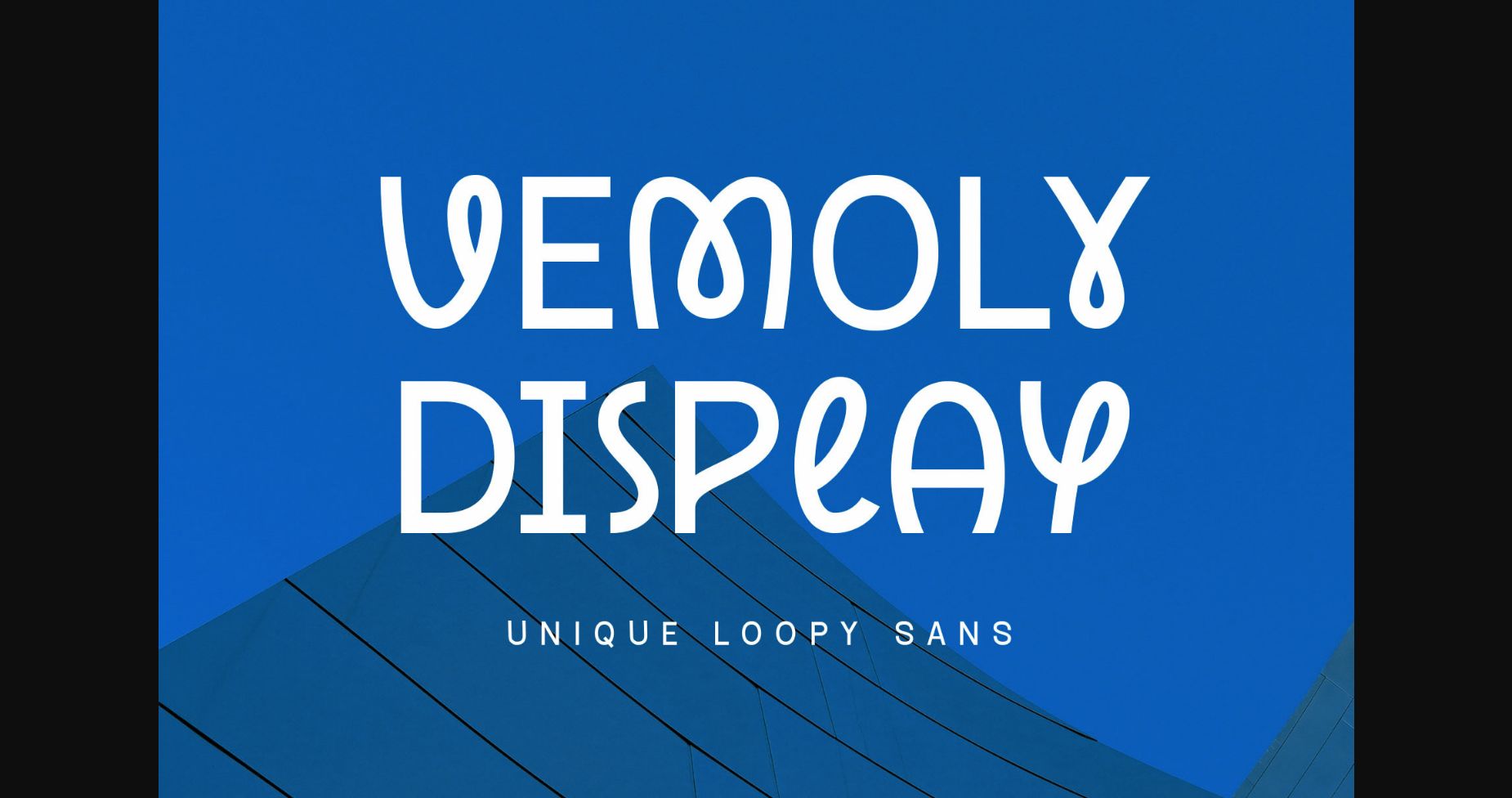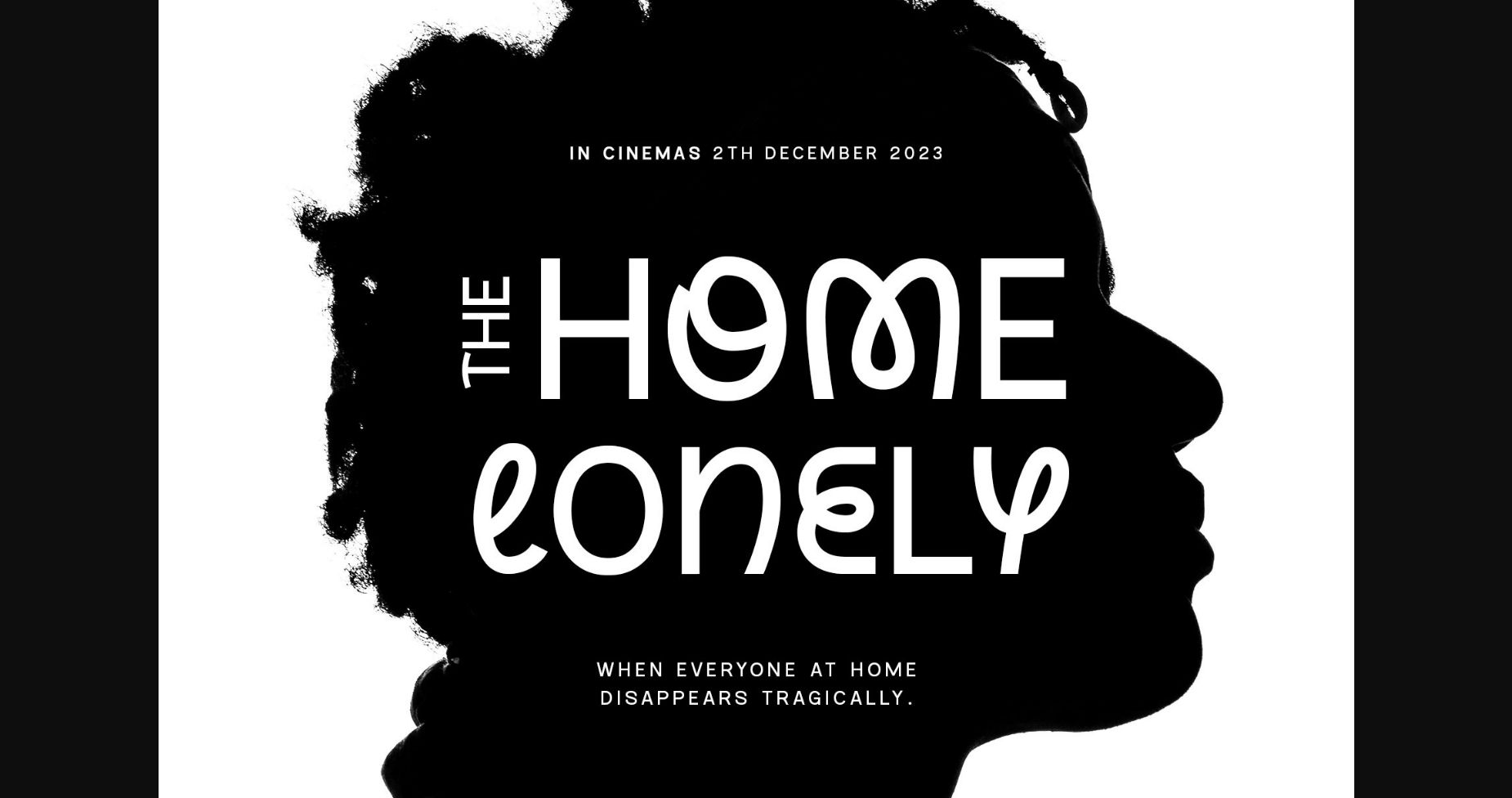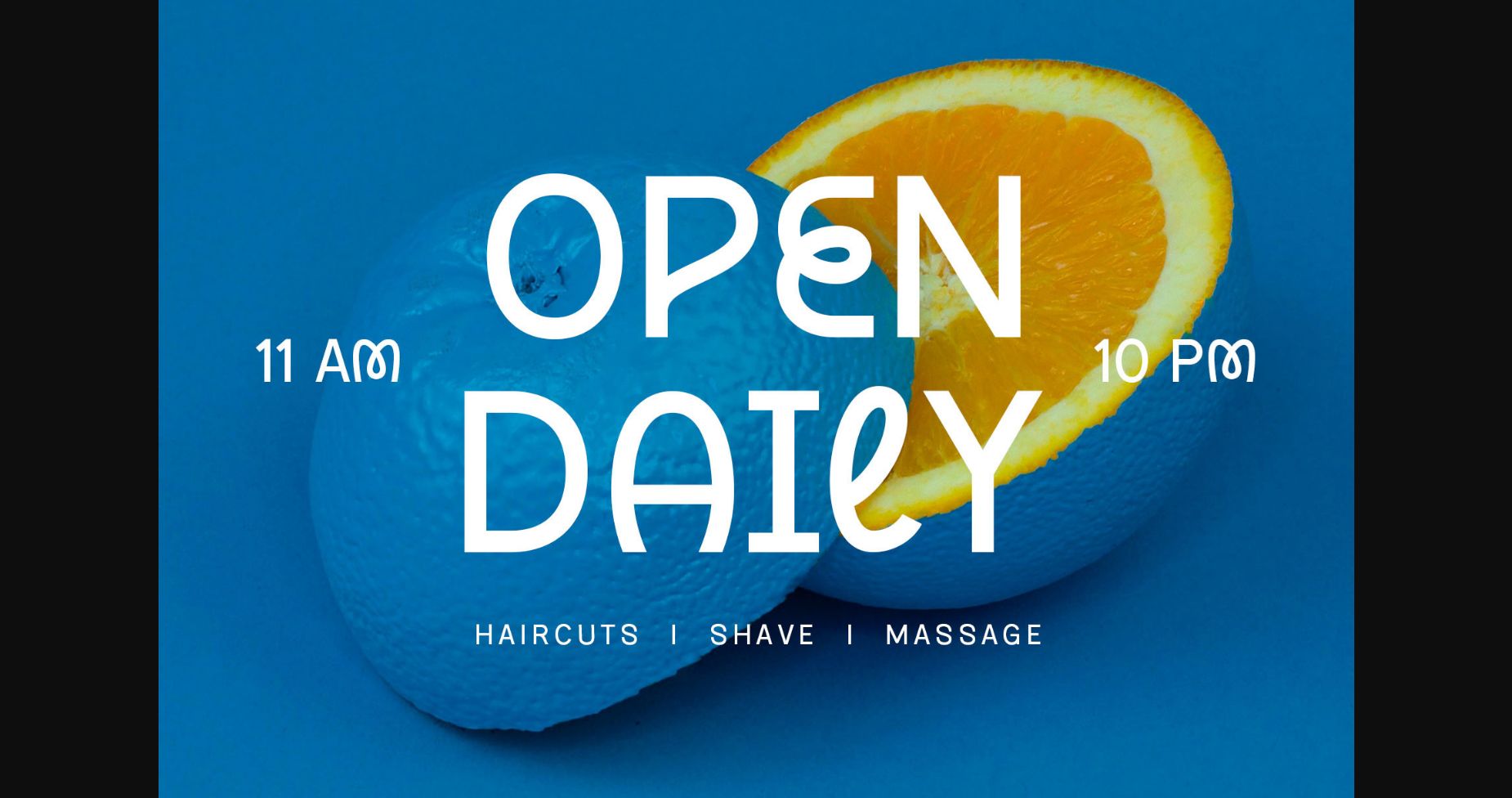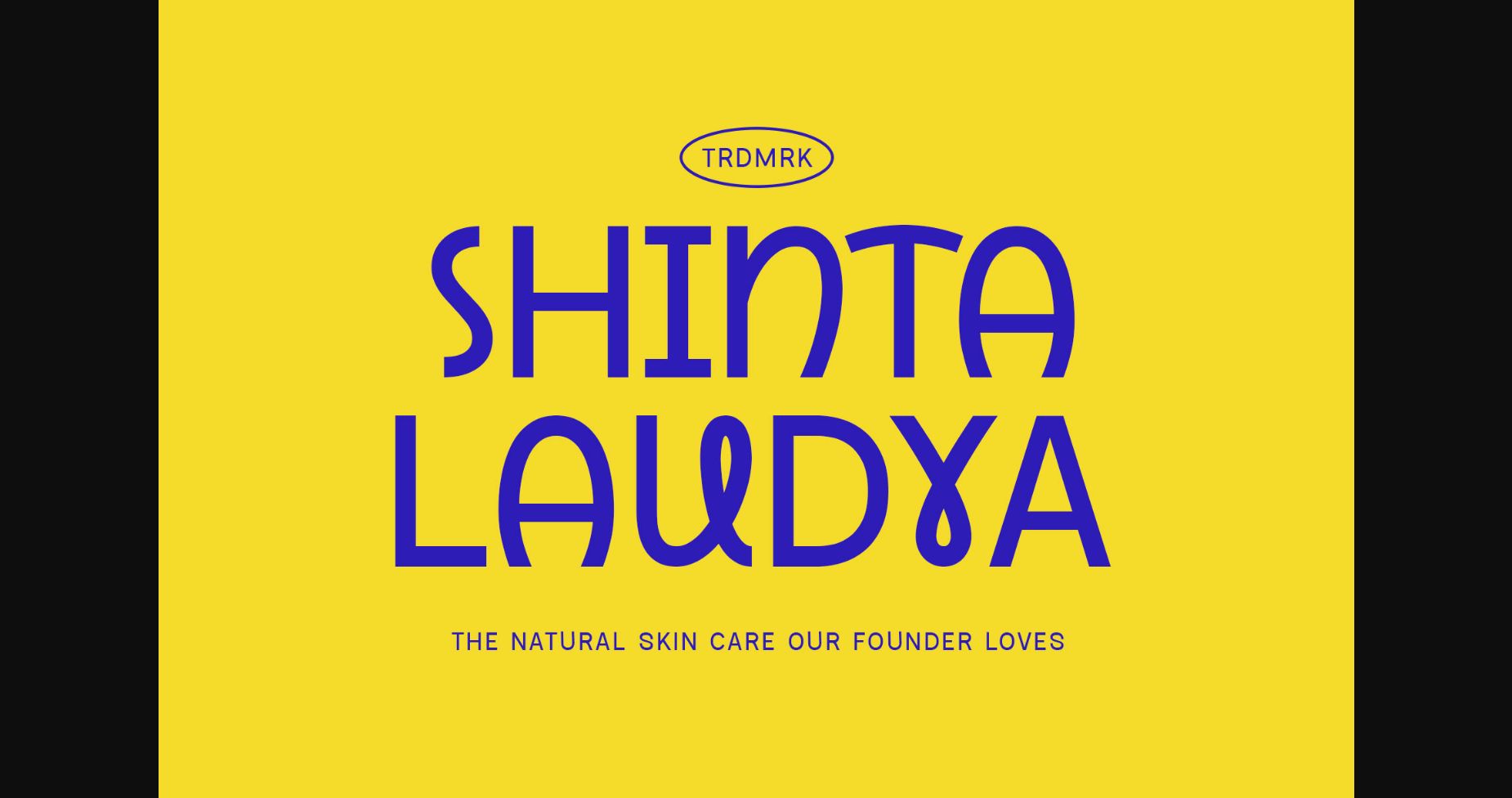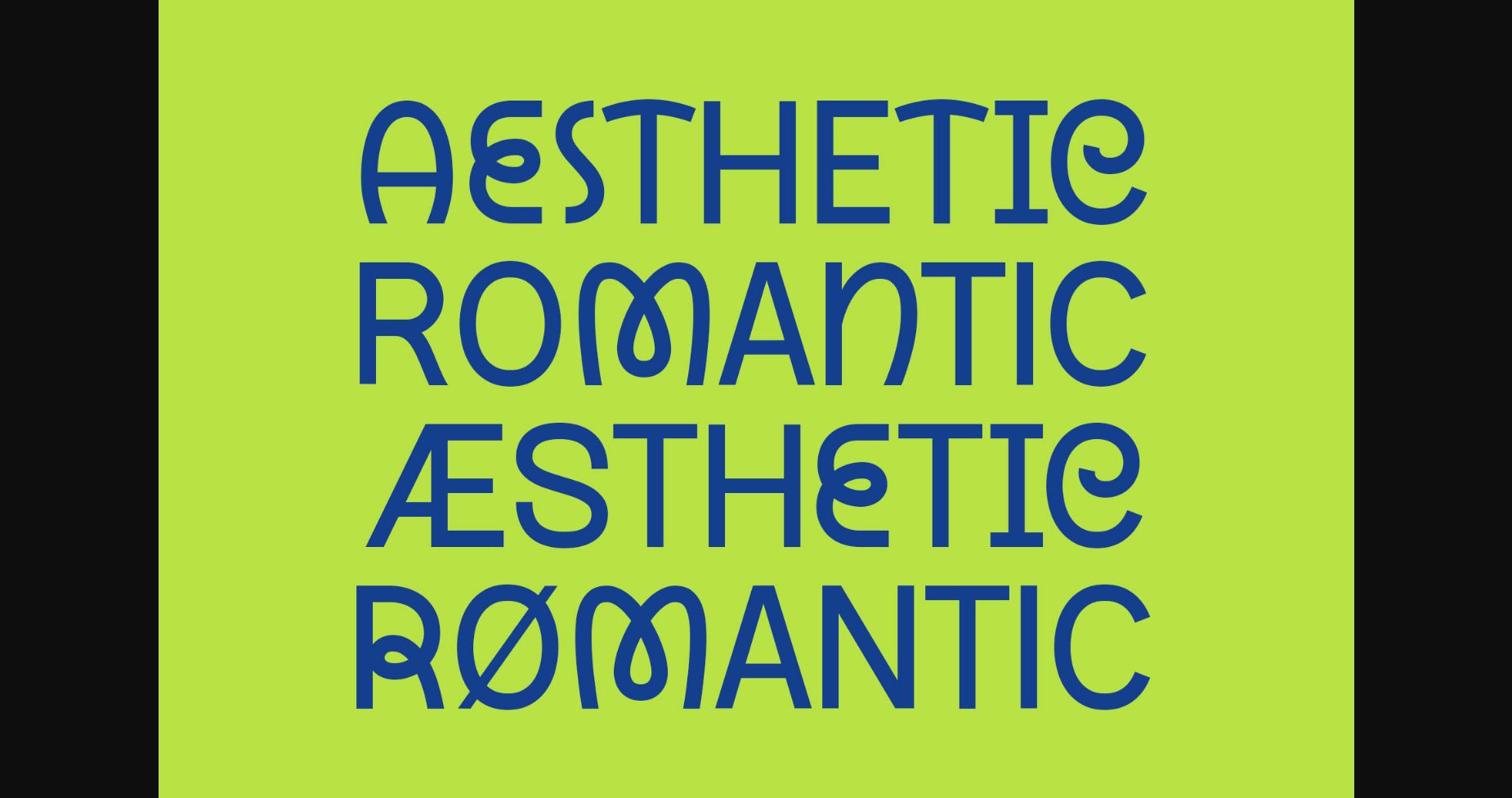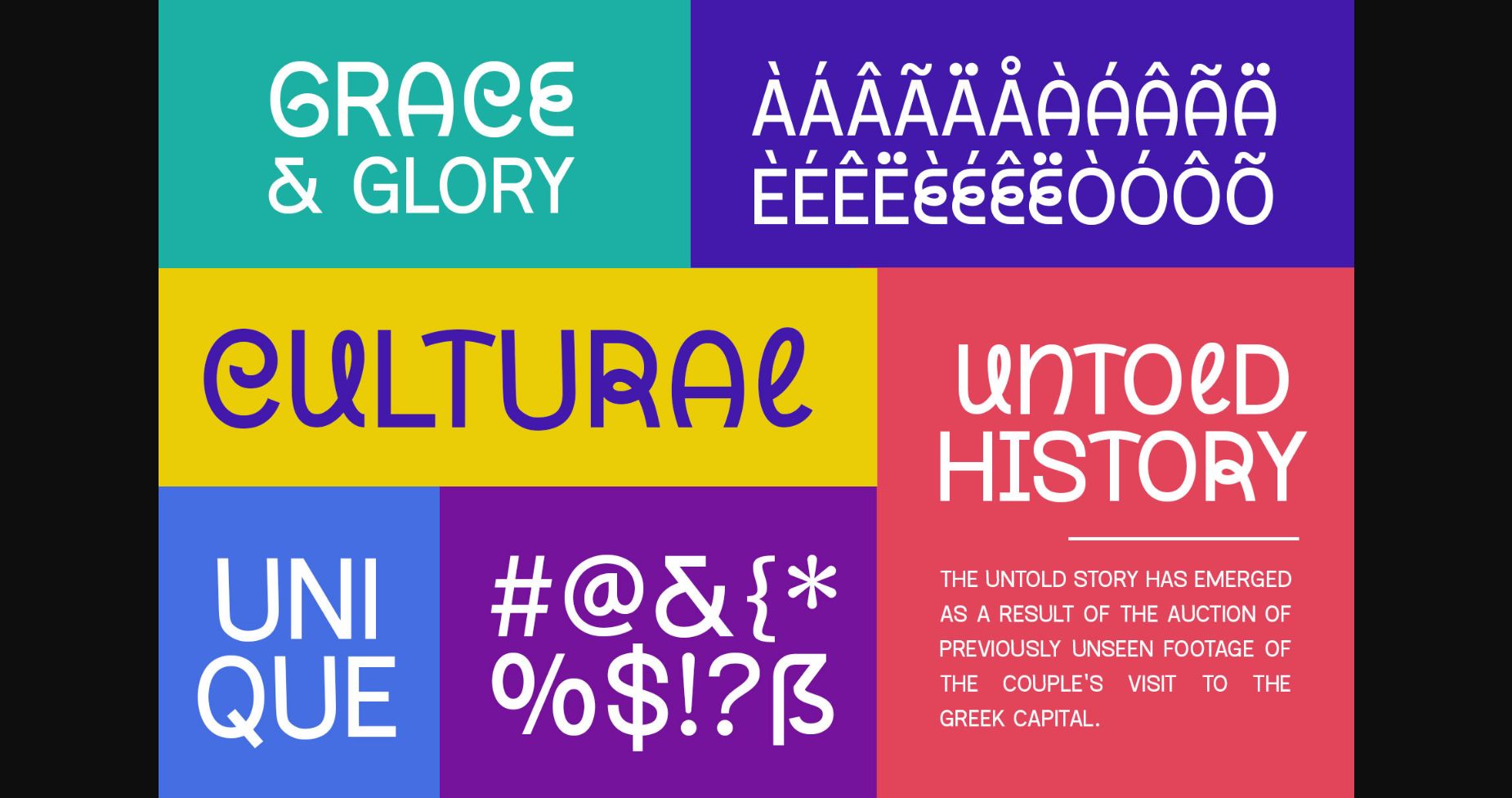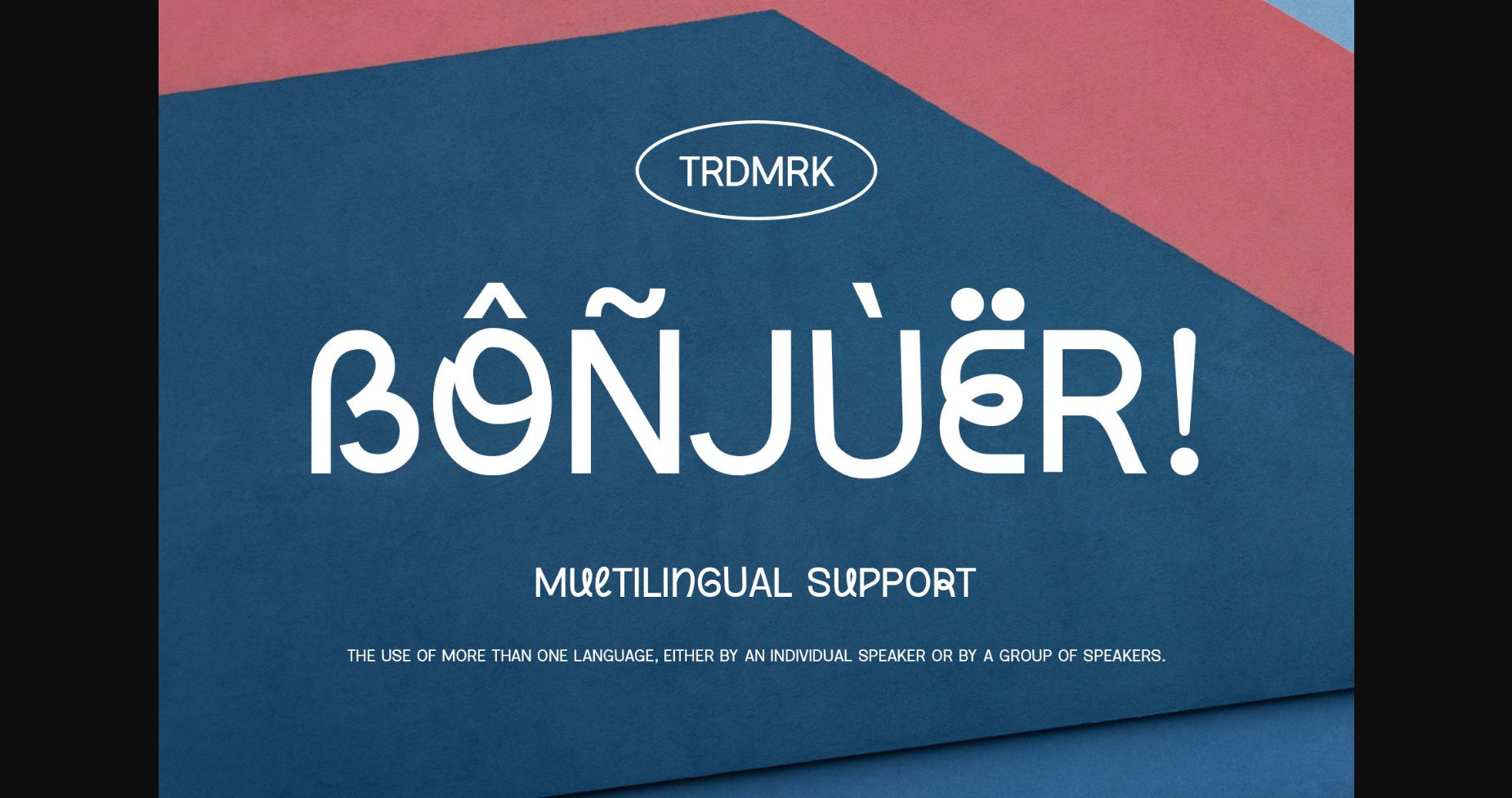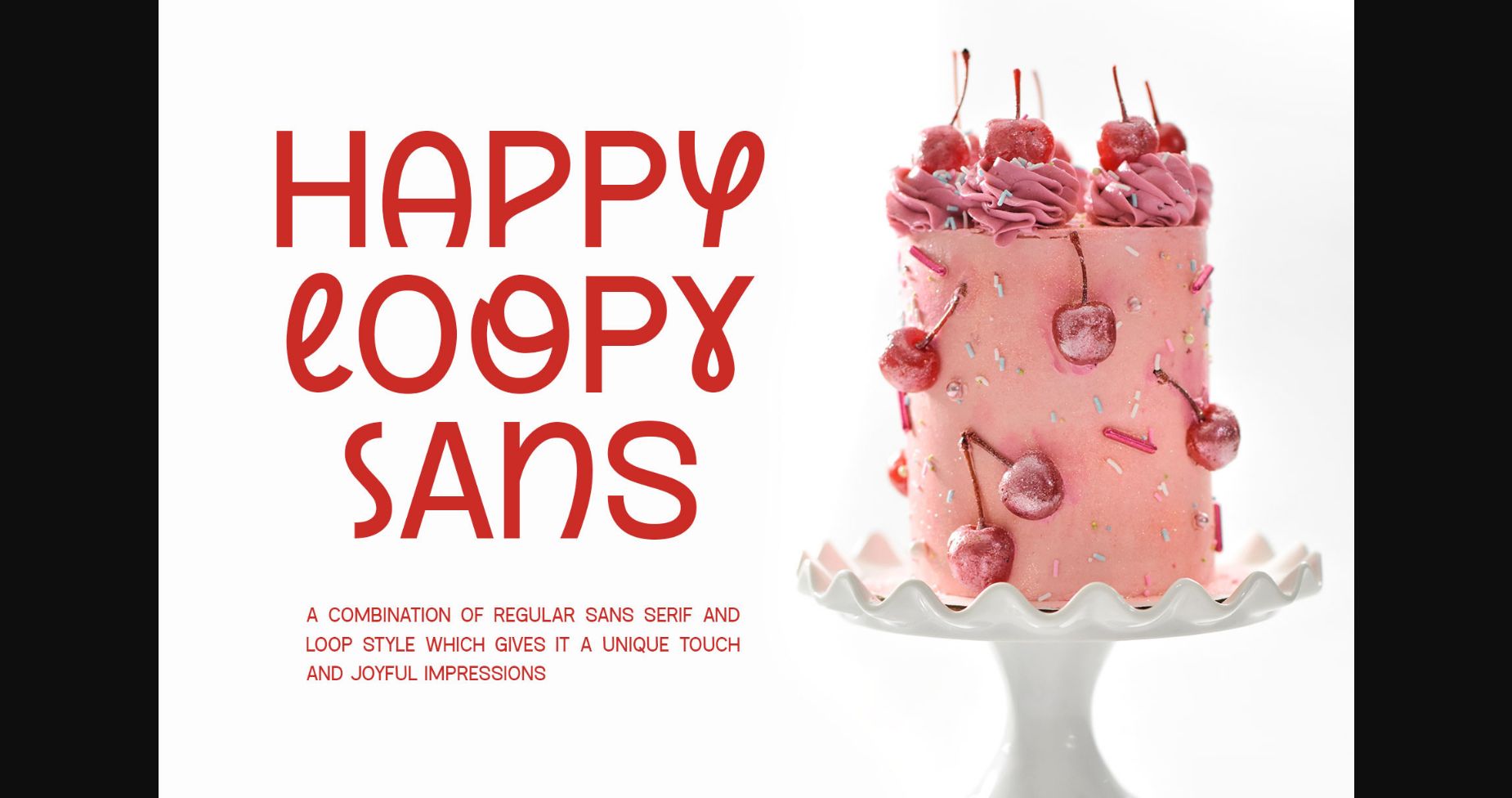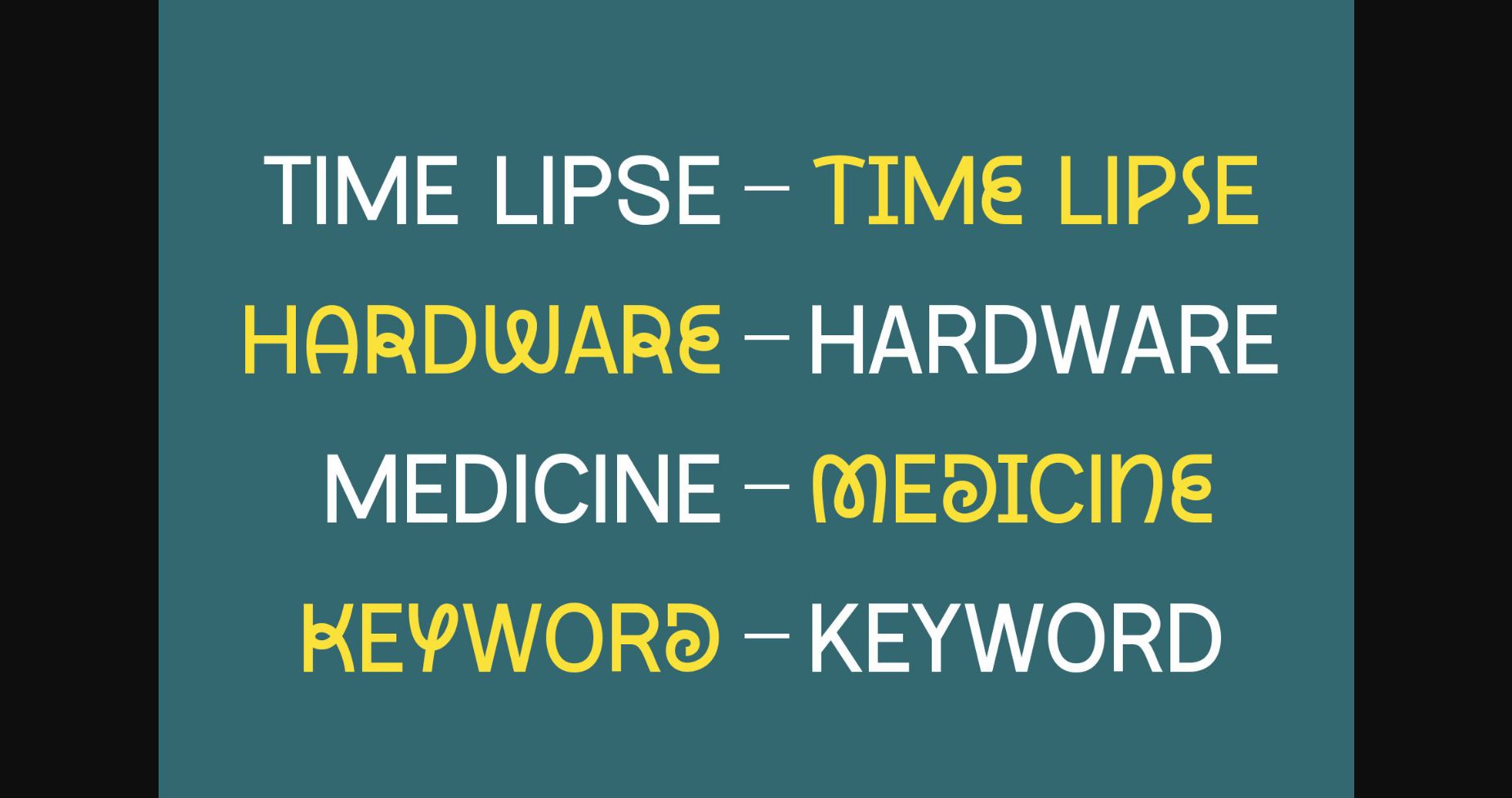
Vemoly Display Font
About Vemoly Display Font
Vemoly Display is a minimalist sans-serif font that is perfect for your upcoming aesthetic project. This font provides a combination of basic sans serif and a loopy style. You can have fun with it by mixing and matching the upper and lowercase to get a unique, simple, and charming typographic design.